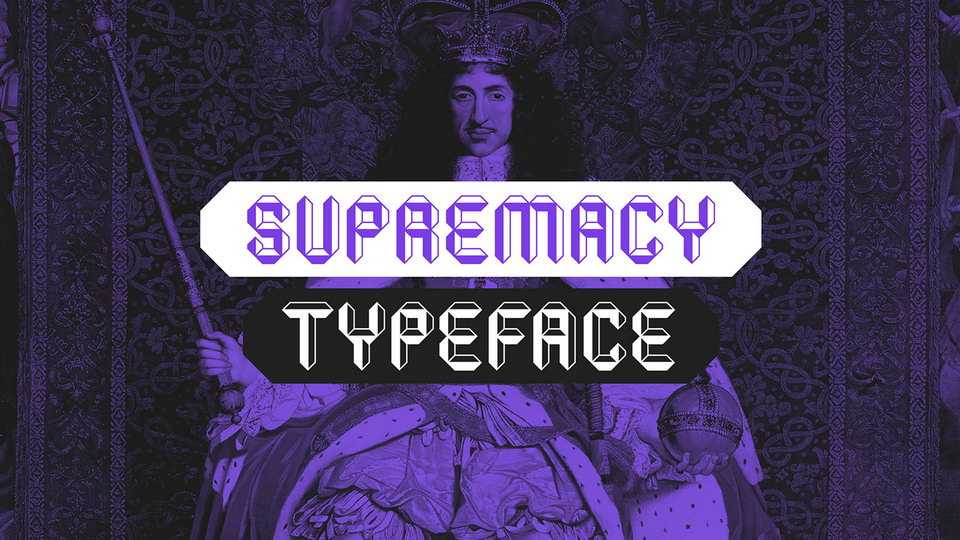
Download Supremacy font, a display typeface with pointy ends. Supremacy has ascended to rule all of the font realms. It’s an exploration project that is meant to be agressive and bold.
Designer: Vedran Vaskovic